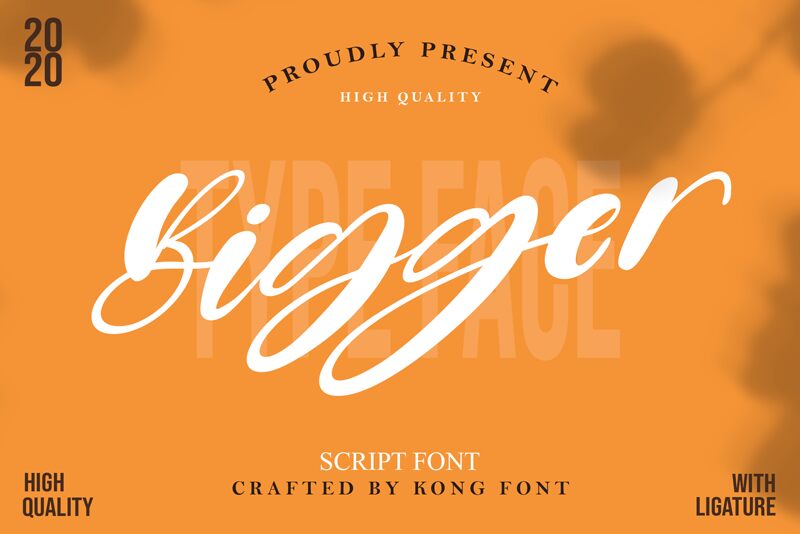
Bigger font family is an elegant script typeface designed by Kong Font. The font family includes 4 different font styles for the user to go through while designing personal and professional projects. The script is gracefully drawn with flowing handwriting lines that translate beautifully in small and large sizes alike.
This typeface is suitable for branding, journaling, printing service companies, stationery items, gift shops, magazines, web pages, invitations, planners, and a lot of other uses.